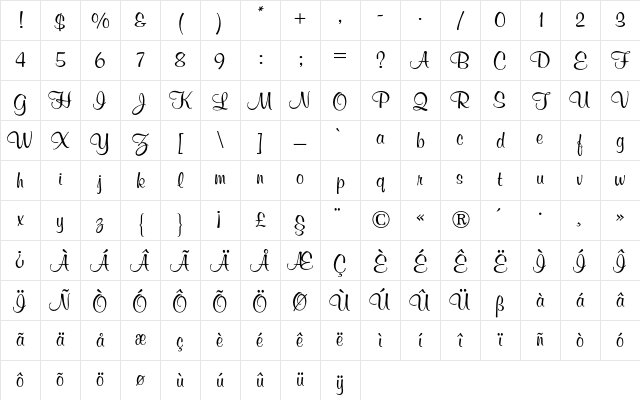
Murray Hill BQ Regular
Design Context for Murray Hill BQ
Murray Hill BQ is a composed and adaptable typeface that performs quietly and consistently across a wide range of design contexts.